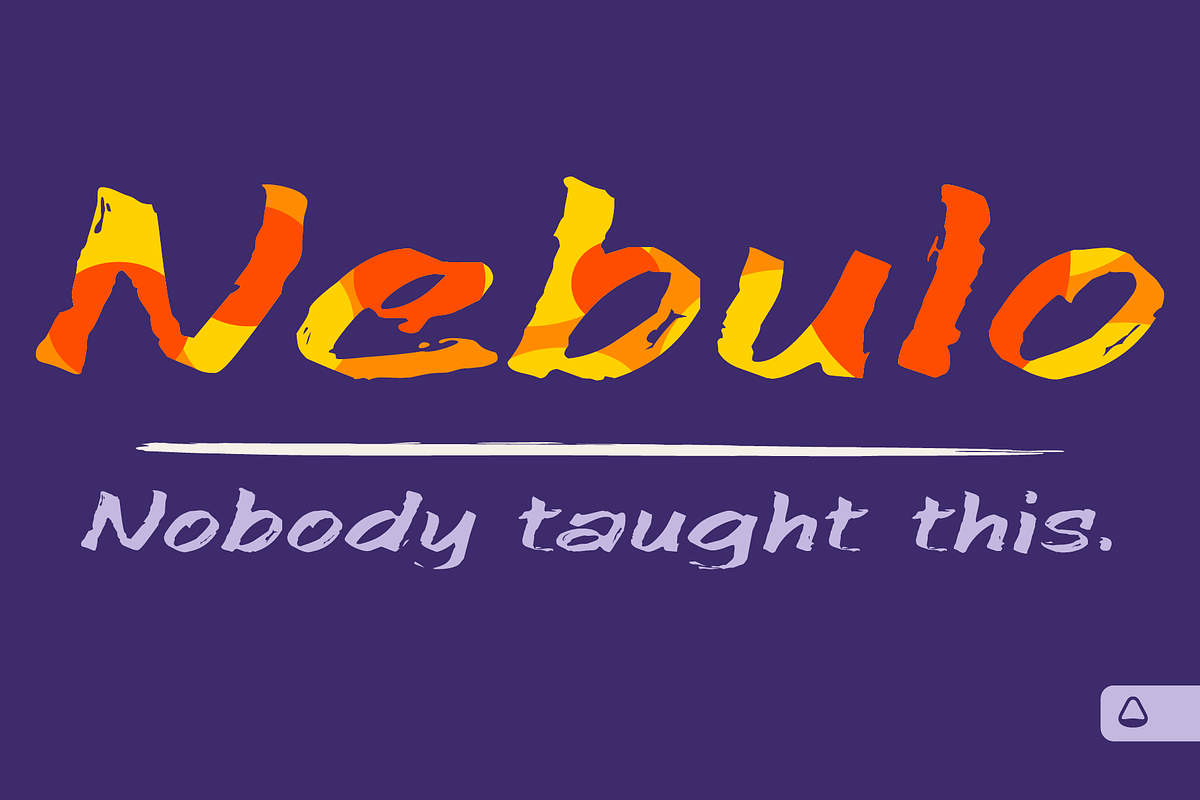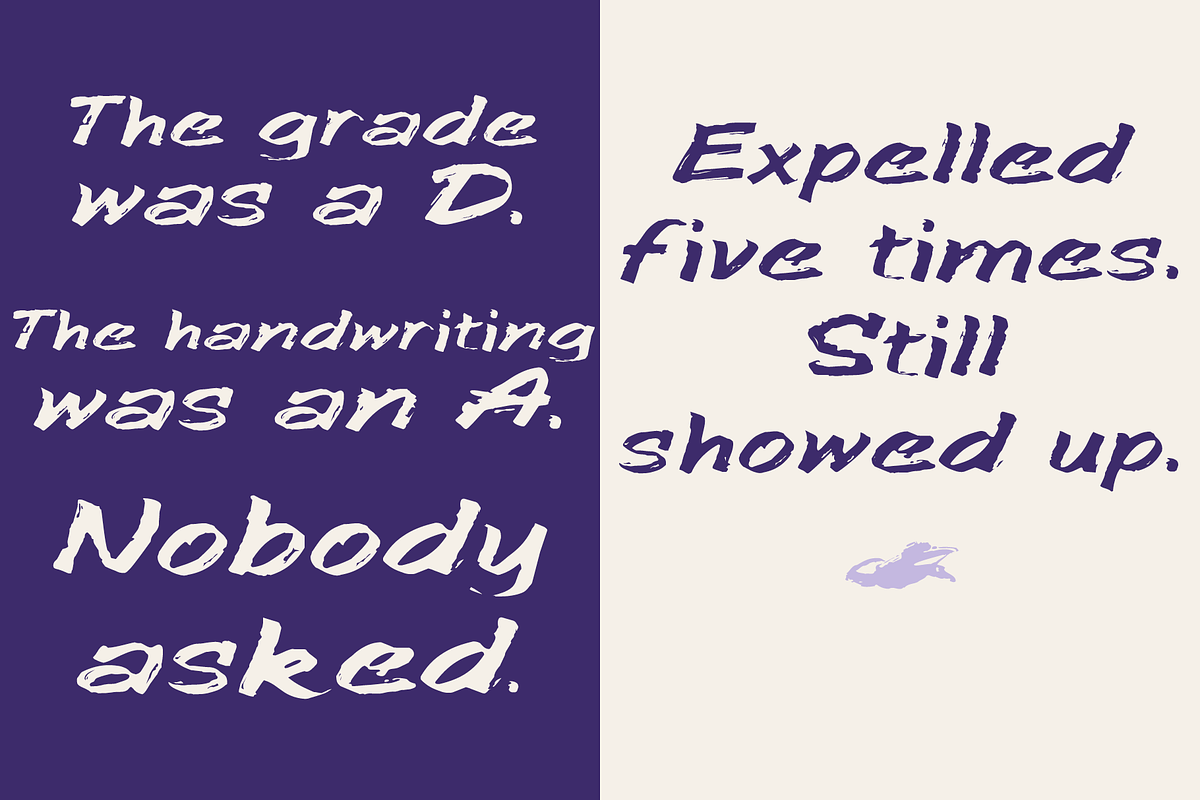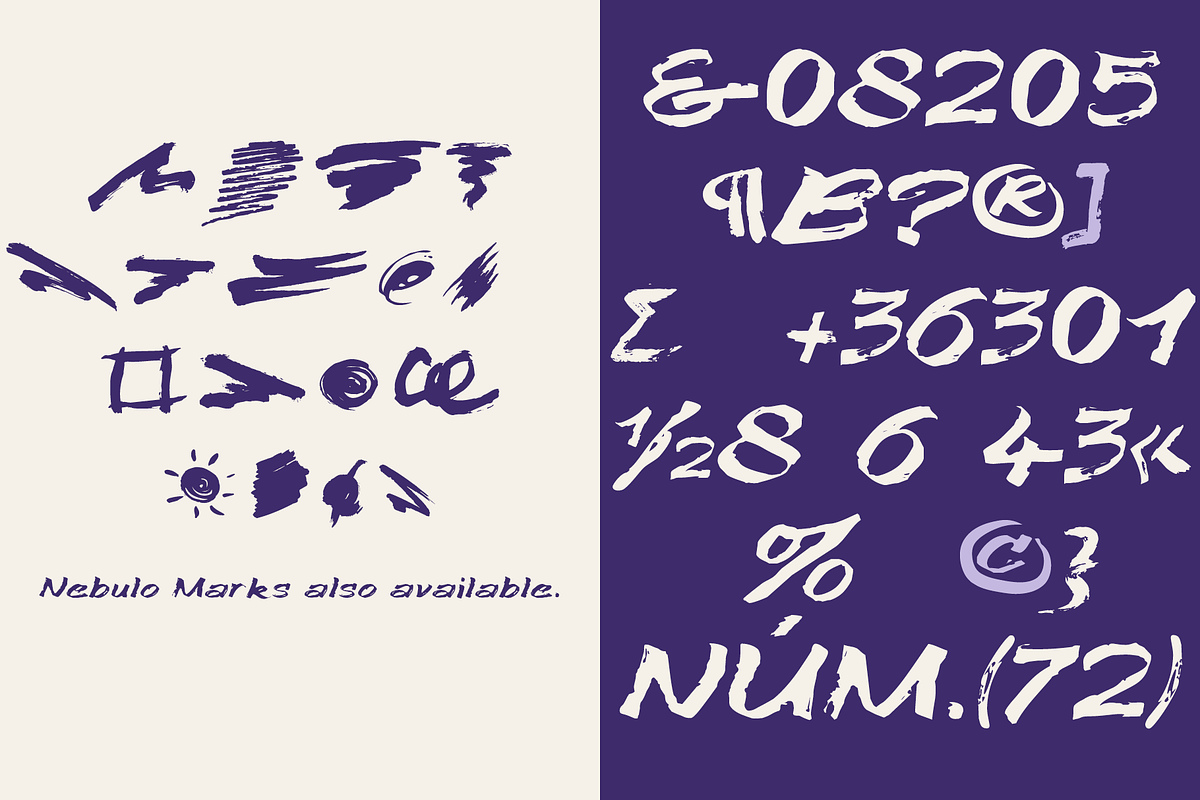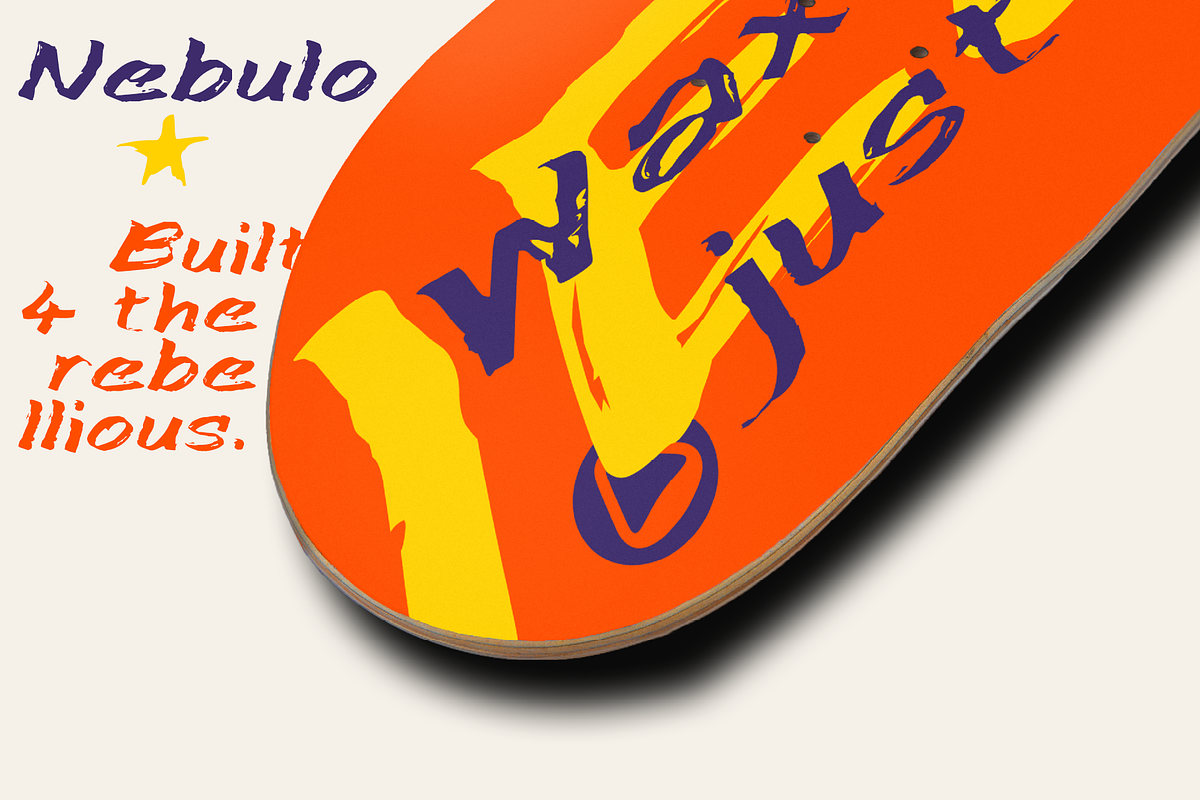
Nebulo
Your layout is almost there. It just needs a hand — a real one.
Nebulo\_ \_is raw brush energy with 200+ glyphs and Extended European Latin support. The kind of lettering that makes a poster look like someone meant it.
Works for editorial, packaging, streetwear, poster, and branding. Every stroke made by hand, on paper, with ink. Not a stylus. Not an algorithm.
Nebulo Marks adds brush gestures and ink splashes for layouts that need texture, not decoration.
Use it big. Use it loud.
Found. Not generated.